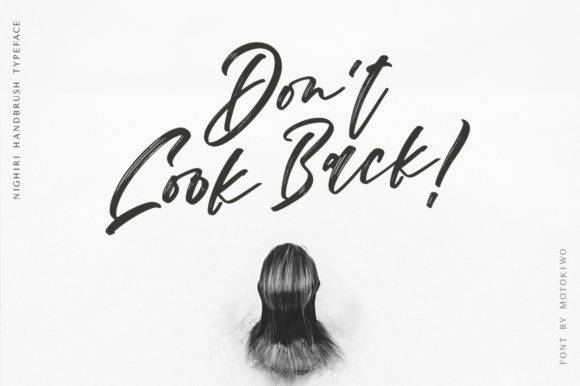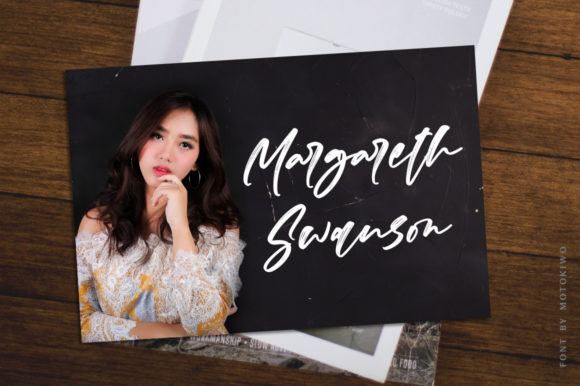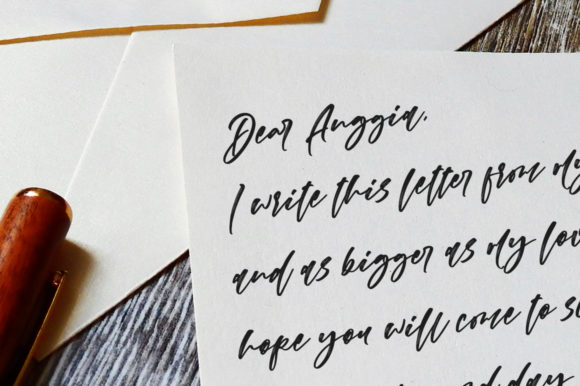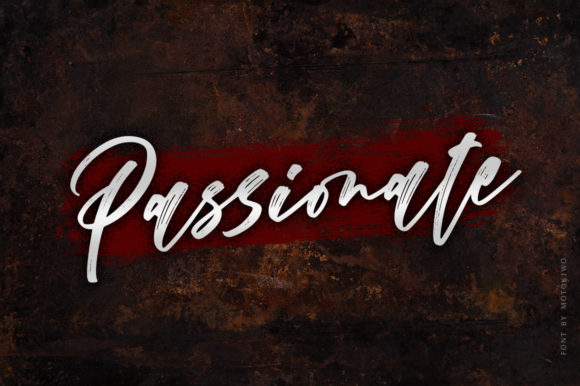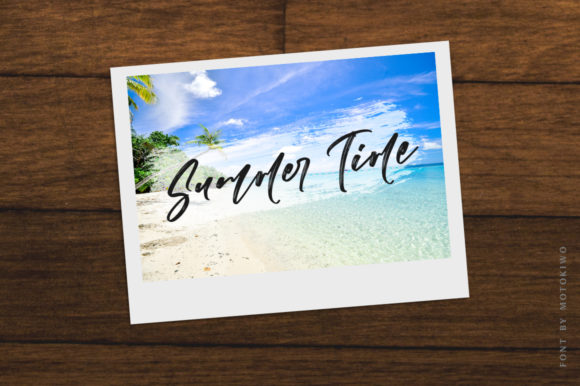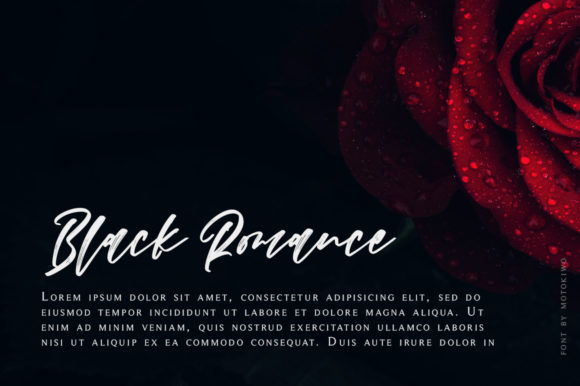
Introduction to Nighiri Font Font
Fonts play a crucial role in design, and the Nighiri Font font is a typeface that brings both character and versatility to any project. Whether you’re working on a branding project, a website, or a print design, the Nighiri Font font offers a unique style that can elevate your work.
Nighiri is a classy and elegant handbrush signature typeface that will elevate any design project, ranging from posters, logos, headlines, quotes to weddings, branding, fashion, and much more.
Nighiri is a classy and elegant handbrush signature typeface that will elevate any design project, ranging from posters, logos, headlines, quotes to weddings, branding, fashion, and much more!
Key Features of Nighiri Font Font
Why Choose Nighiri Font Font?
The Nighiri Font font is more than just a typeface – it’s a design tool that helps you communicate your message with style and clarity. Its unique character set and versatile design make it suitable for a wide range of applications, from elegant invitations to bold headlines.
With its carefully crafted letterforms and balanced proportions, the Nighiri Font font ensures readability and visual appeal across all mediums.
What makes Nighiri Font font special?
The Nighiri Font font stands out with its unique design, exceptional readability, and versatility across various design applications.